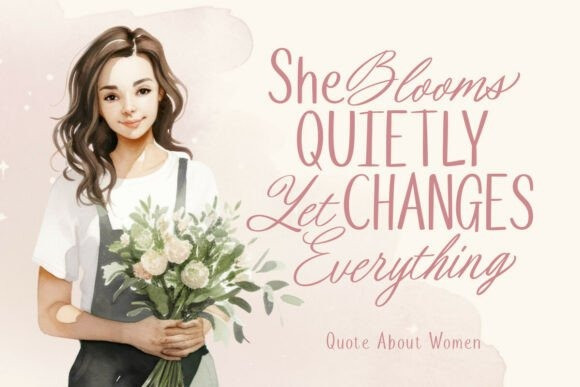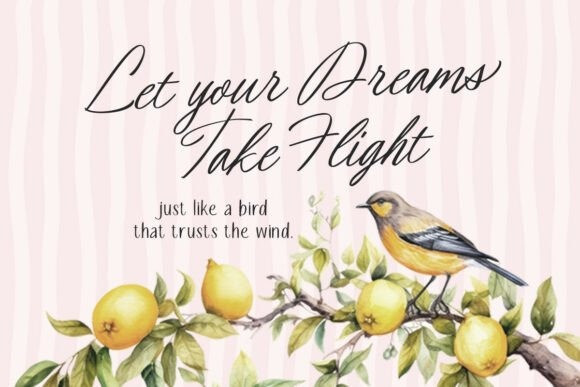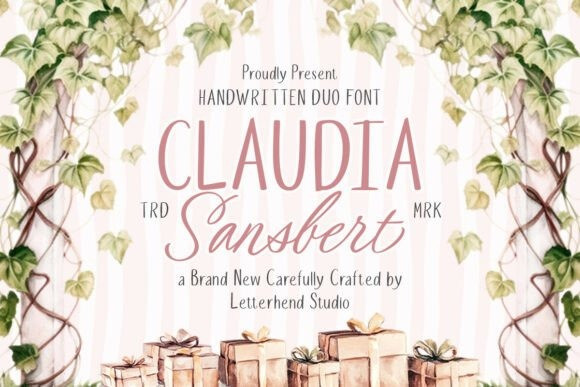
Claudia Sansbert Font
Claudia Sansbert Font is a beautifully crafted handwritten duo font, expertly pairing a clean, tall sans-serif style with an elegant, feminine script, creating a harmonious and versatile aesthetic.
The combination of the strong, simple all-caps sans-serif (Claudia in the preview) and the flowing, charming handwritten script (Sansbert in the preview) allows for exceptional versatility in titling, branding, and packaging.
This Claudia Sansbert Duo typeface is perfect for lifestyle, wedding, garden, and artisanal product branding where a sense of delicate, handcrafted, and natural beauty is paramount. The pairing offers designers the ability to create visually rich hierarchies, balancing the structured strength of the sans with the personal touch of the script.